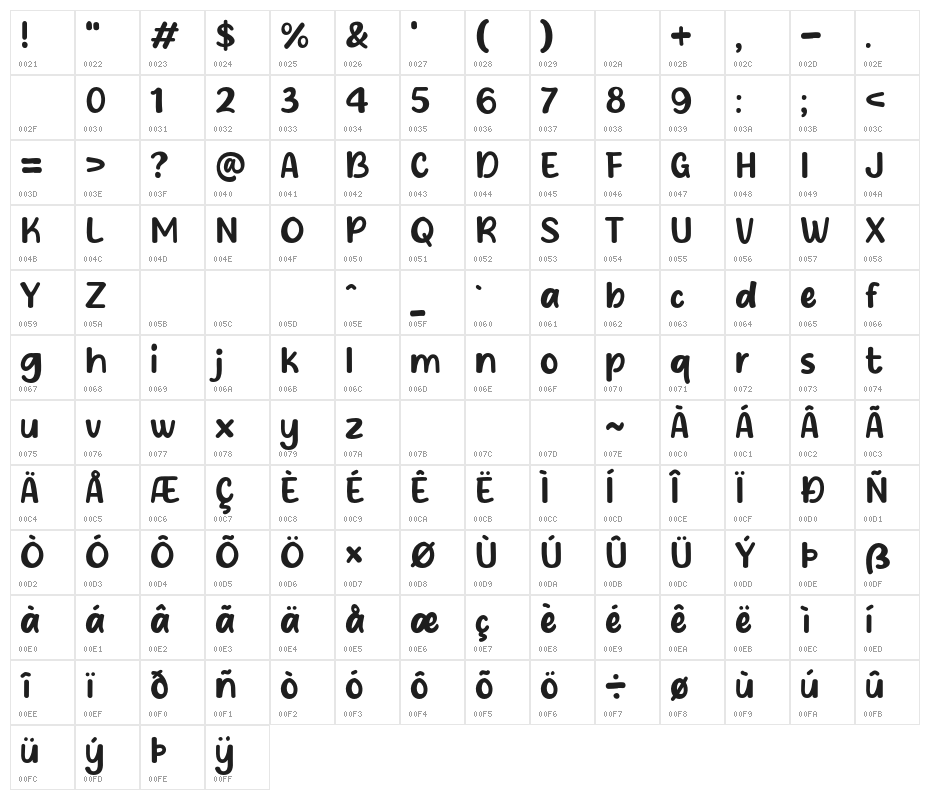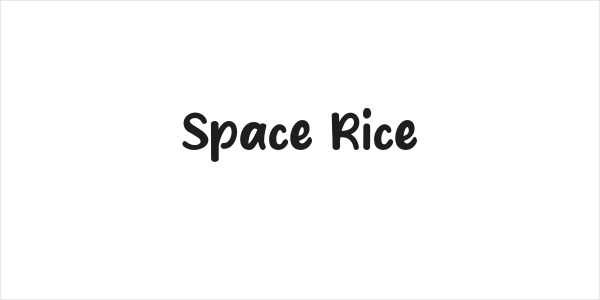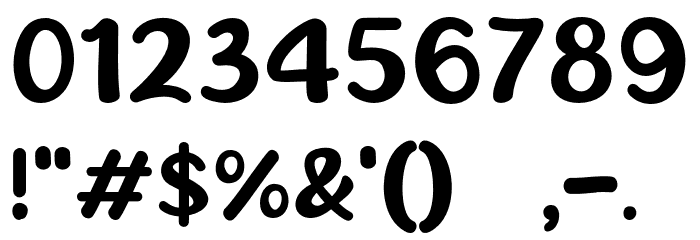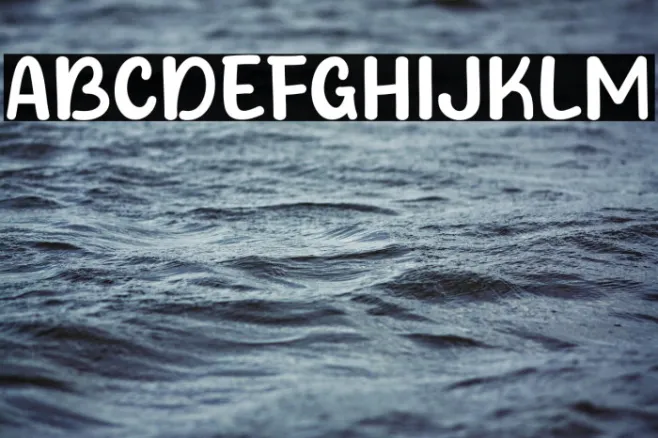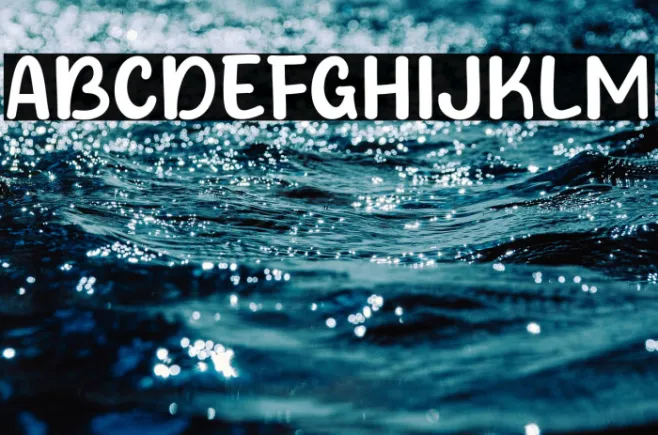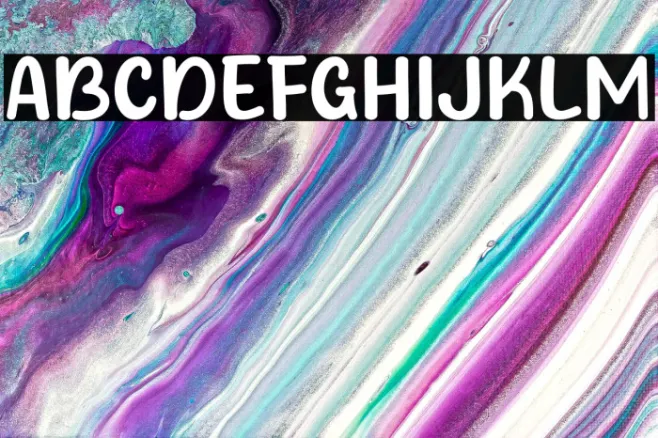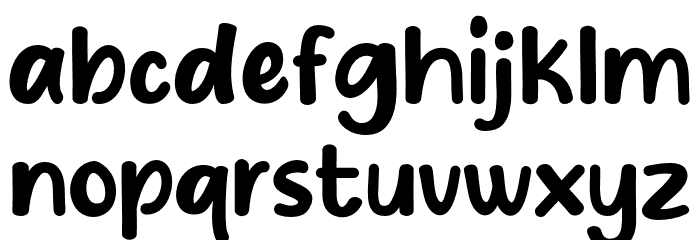
Space Rice Font
Space Rice Description
This font features a playful and rounded style, with a hand-drawn appearance that gives it a friendly and approachable feel. The letters are bold and slightly irregular, adding a whimsical touch to the text. The uppercase and lowercase characters maintain a consistent style, with smooth curves and a uniform stroke width. Numbers and special characters are designed to match the overall aesthetic, ensuring a cohesive look across all text elements. This font is ideal for projects that require a casual and fun vibe, making it perfect for children's books, playful branding, or informal invitations.
| Overall Style | Playful |
| Use Case | Headlines, Logos, Informal Text |
| Proposed Projects | Children's books, playful branding, informal invitations, casual posters. |